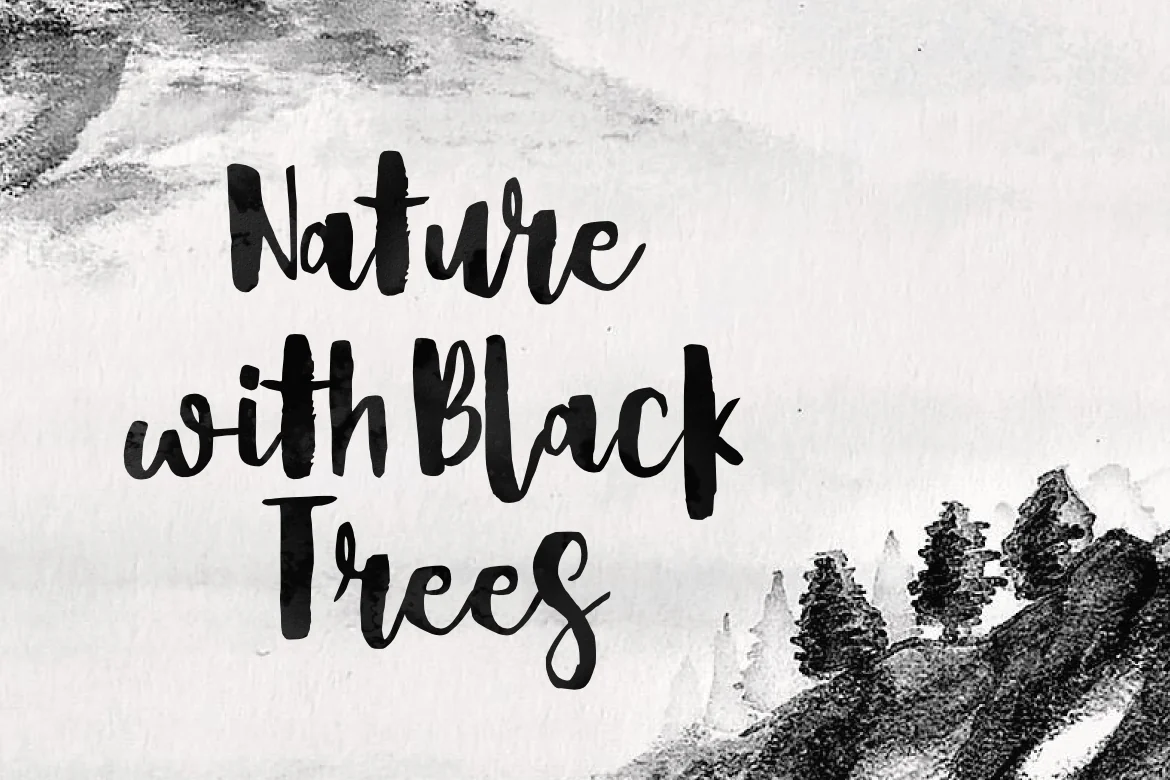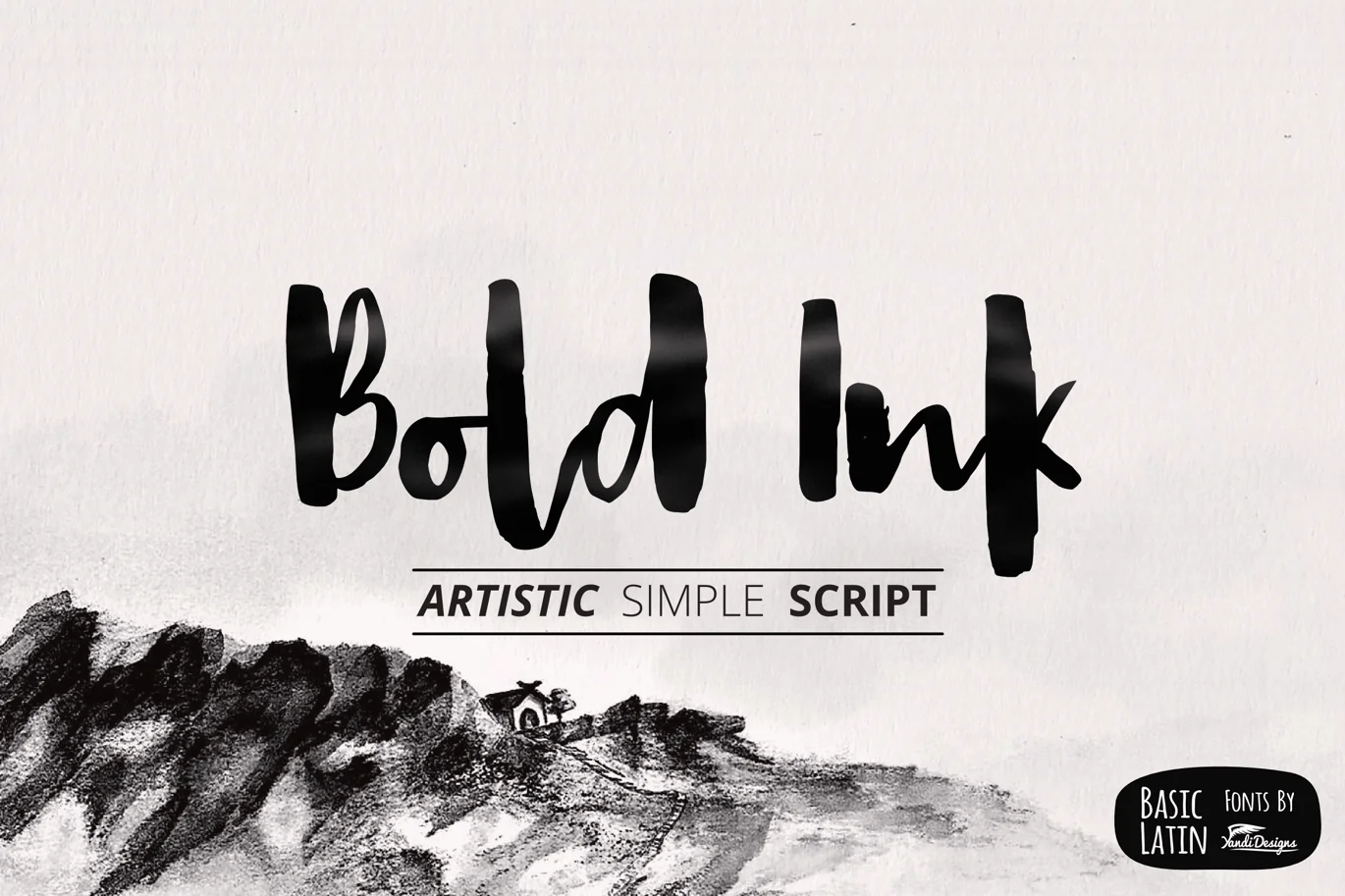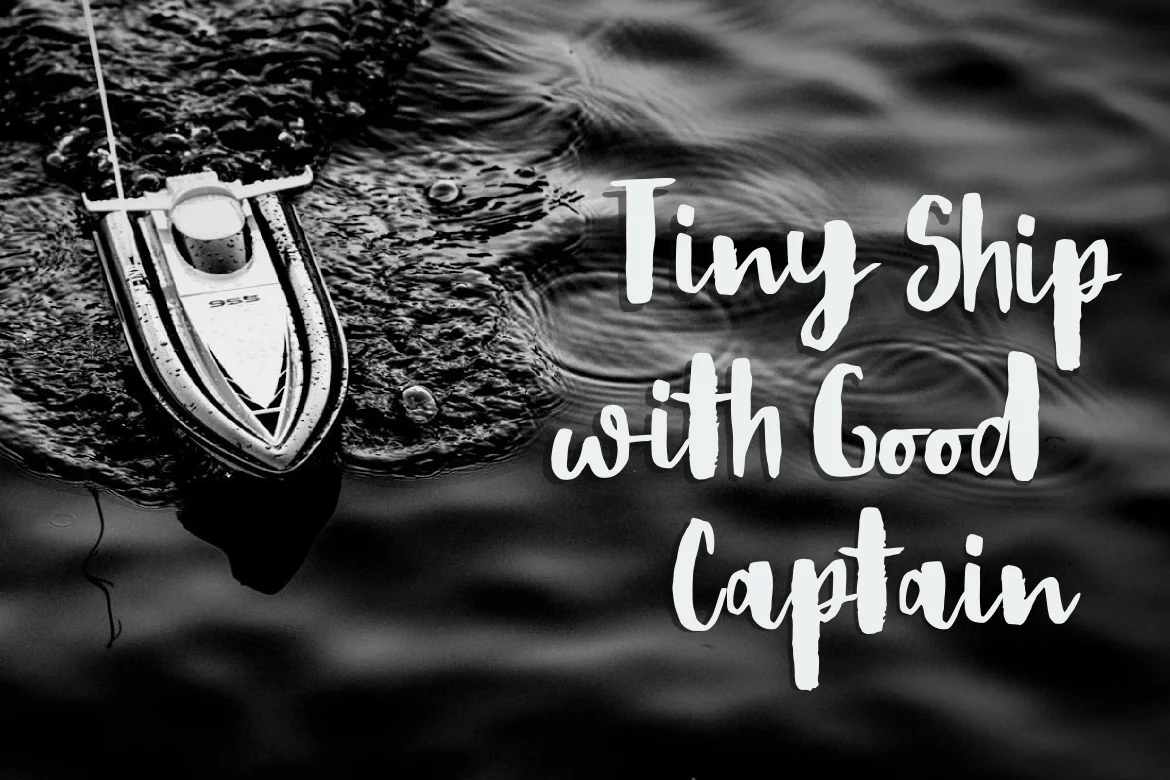
Bold Ink Simple Font
Bold Ink Simple Brush Font
Artistic and simple handmade brush script font , suitable for many project , quotes, logo , doodle, heading , title etc.